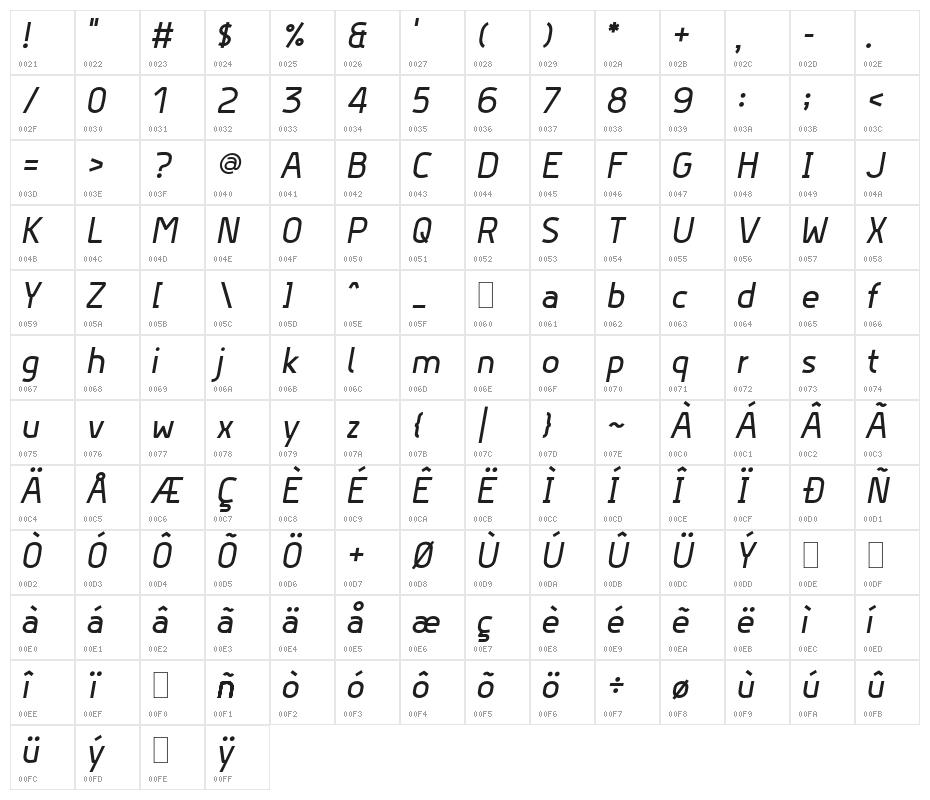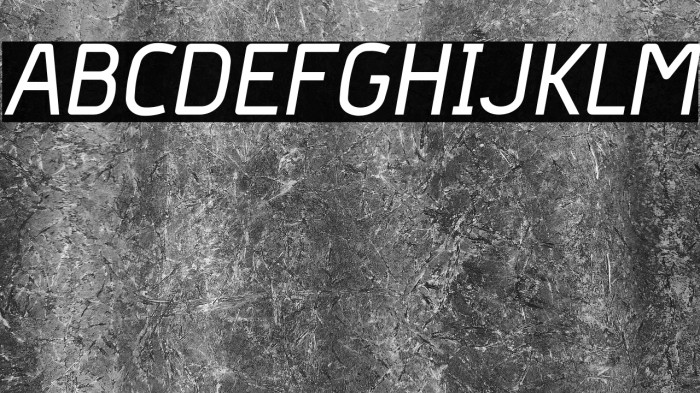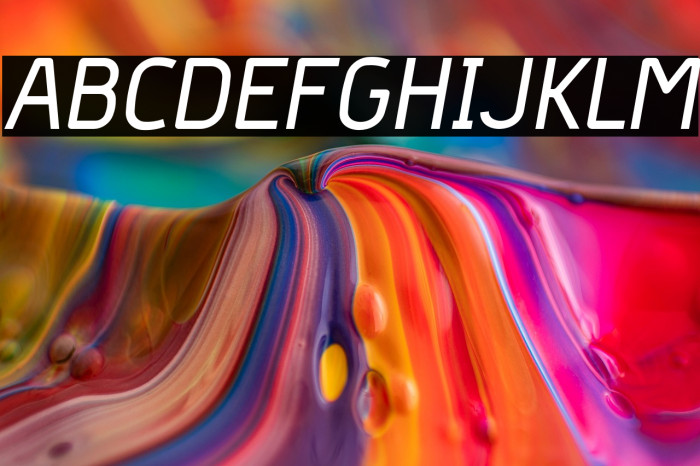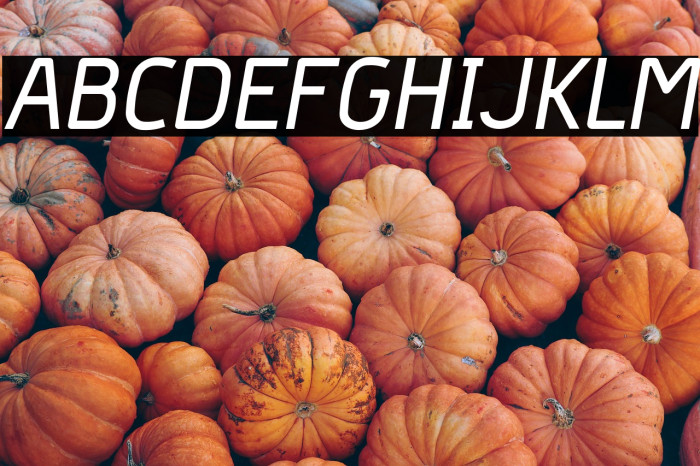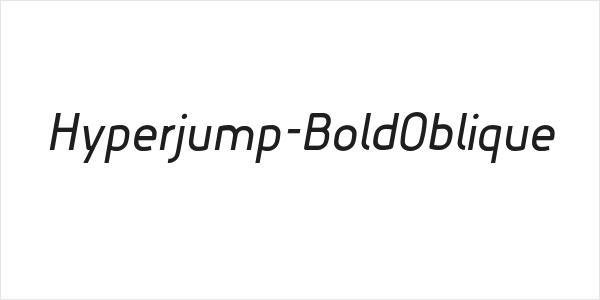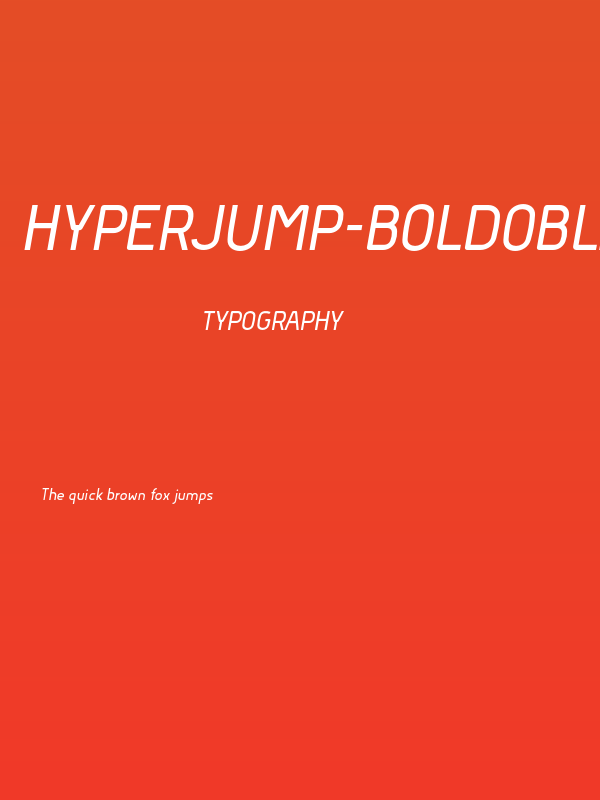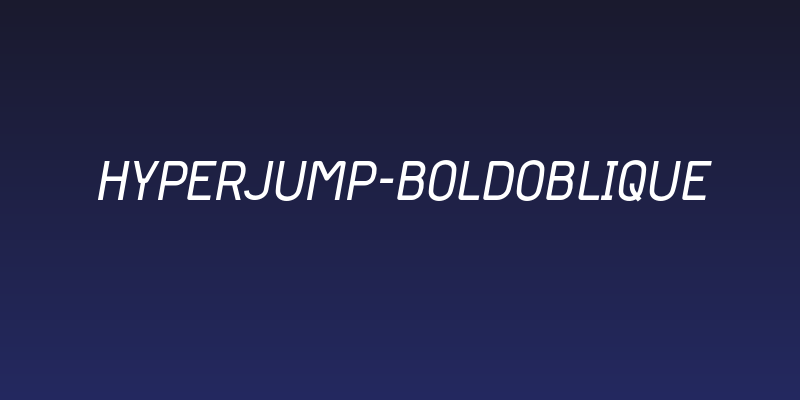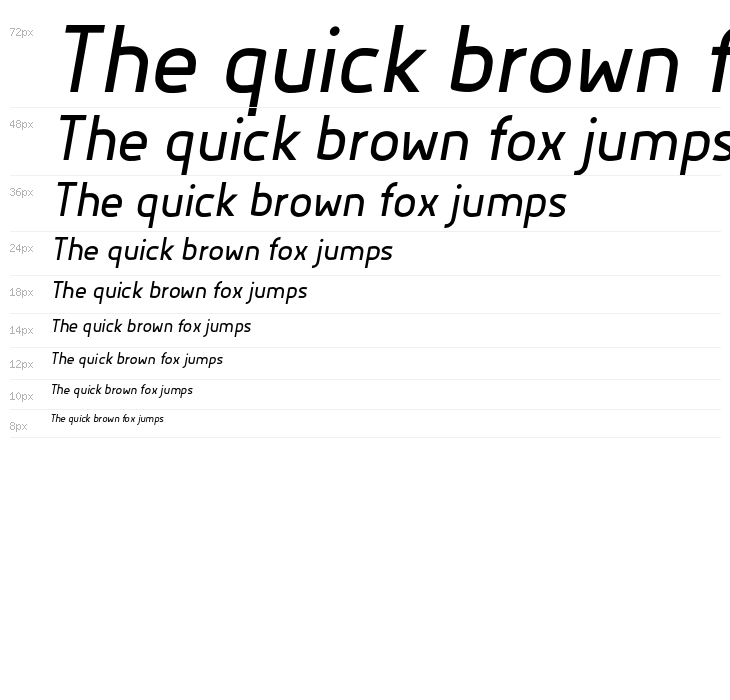
Hyperjump-BoldOblique Font
Hyperjump-BoldOblique Description
This font presents a sleek and modern aesthetic with its bold and oblique style. The characters are slightly slanted, giving a dynamic and forward-moving appearance. The strokes are consistent in thickness, contributing to a uniform look across all characters. The uppercase and lowercase letters maintain a harmonious balance, while the numerals are clear and easy to read. Special characters are well-integrated, enhancing the font's versatility. Overall, this font exudes a contemporary feel, making it suitable for various design applications.